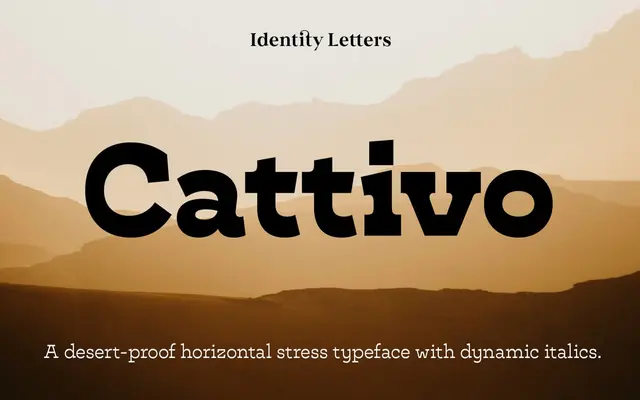
A reverse-contrast slab serif in the Italienne tradition, drawing on 19th-century wood type heritage with contemporary proportions and a full set of independently drawn italics across nine weights.
Cattivo reinterprets the Italienne genre with moderated horizontal stress, making it more legible and evenly textured than most period revivals while retaining the frontier character of display wood type. Nine weights from Thin to Black each carry genuine italics with a handwriting-inspired construction, a rarity for this genre, extending the family's usefulness into short body text settings. Around 700 glyphs include oldstyle and lining figures in multiple formats, arrows, circled and boxed numerals, and broad Latin Extended language support.
Cattivo belongs to the Italienne tradition of reverse-contrast slab serifs, where horizontal strokes are bold and verticals are relatively thin, rooted in early 19th-century wood type display faces.